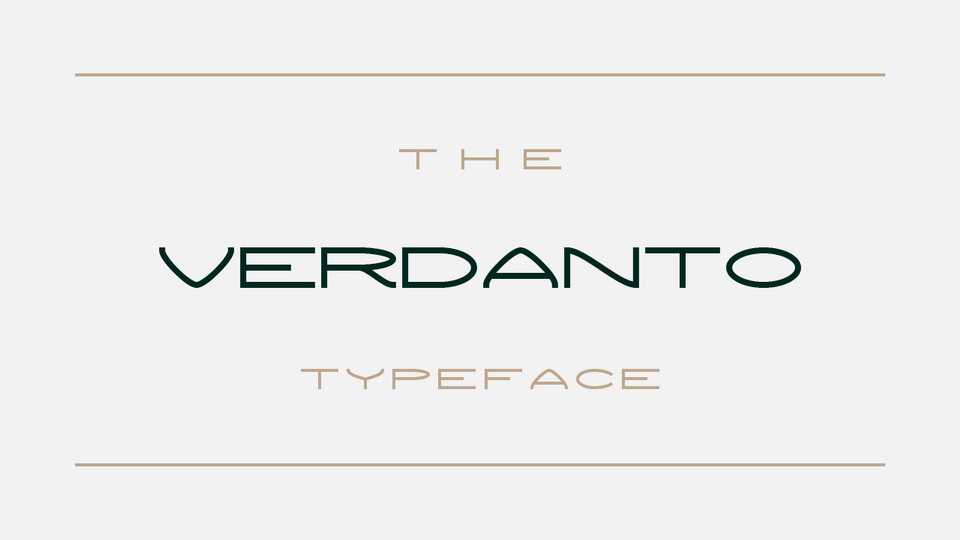
Download Verdanto font, a modern, wide display typeface exuding elegance and sophistication and creating an airy and refined aesthetic that speaks to high-end design.